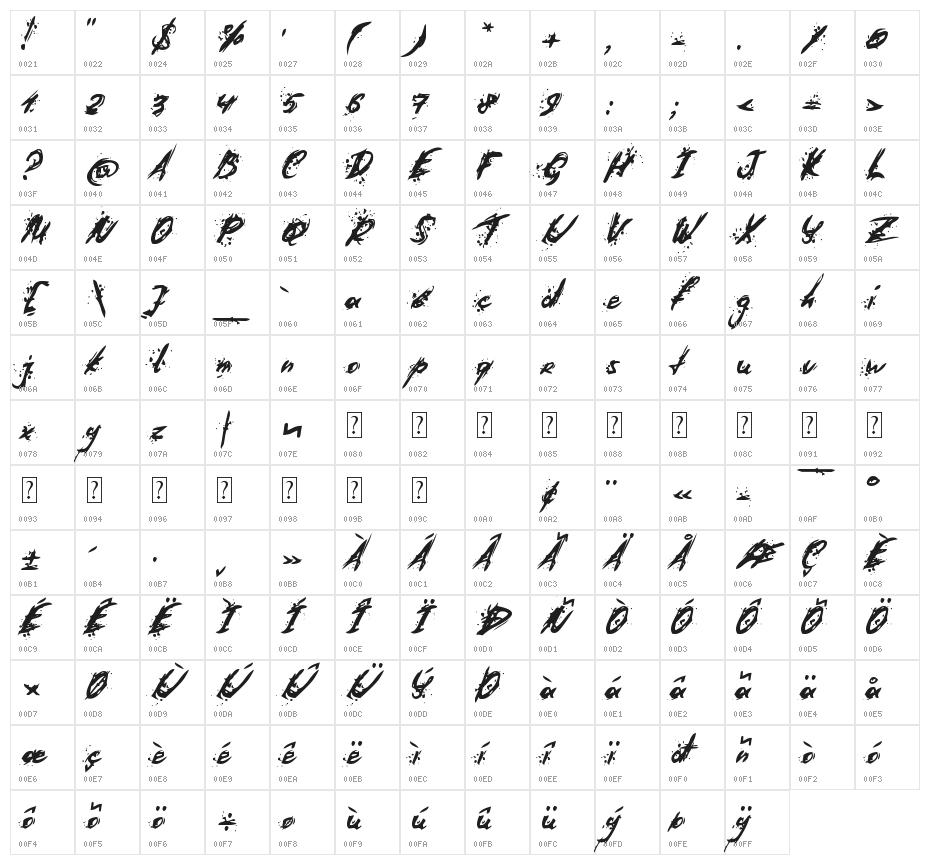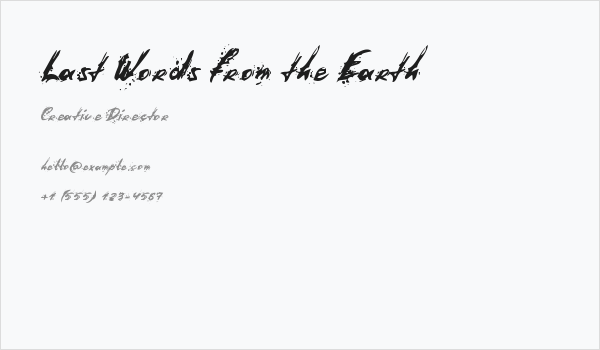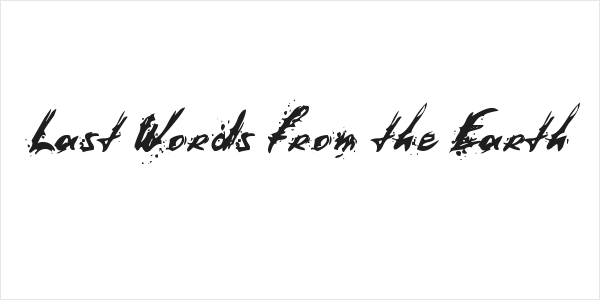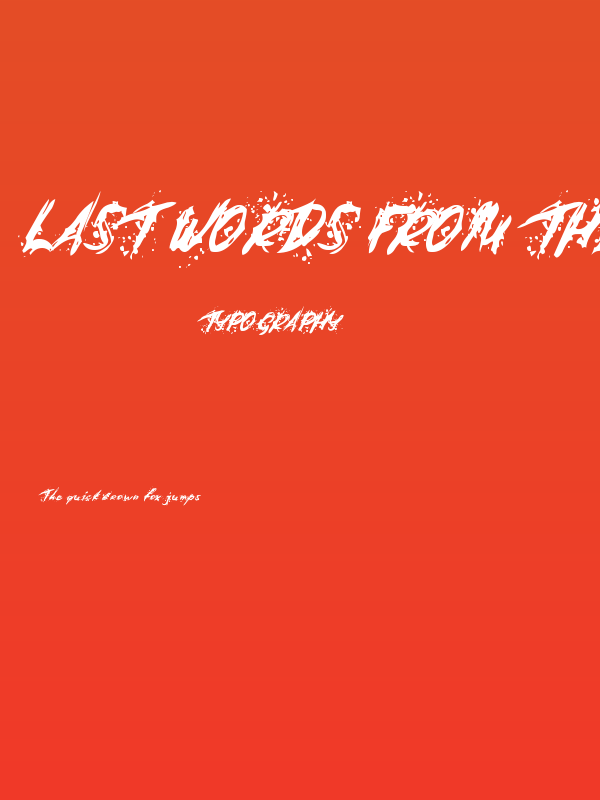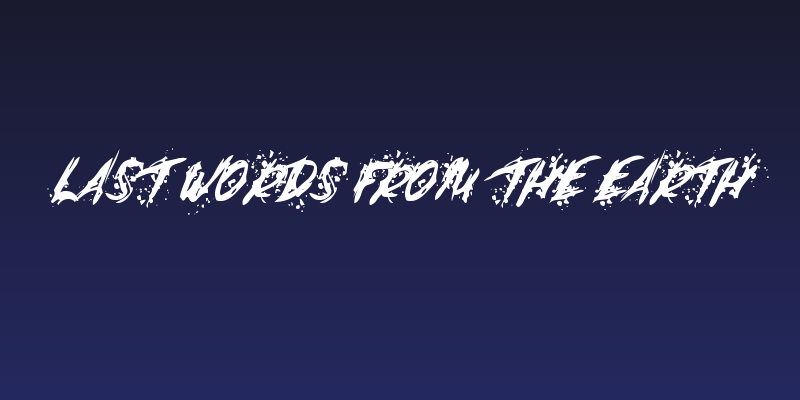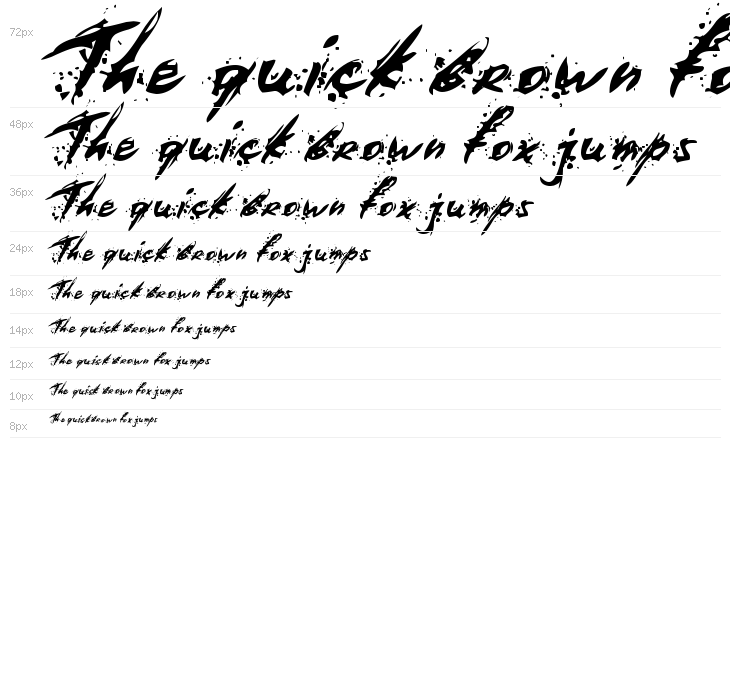
Last Words from the Earth Font
Last Words from the Earth Description
This font exudes a raw, expressive energy with its splattered, graffiti-like appearance. Each character is uniquely styled with dynamic strokes and irregular edges, creating a sense of movement and chaos. The uppercase and lowercase letters maintain a consistent aesthetic, while the numbers and special characters integrate seamlessly into the overall design. The font's bold, artistic flair makes it ideal for projects that require a strong visual impact, such as album covers, posters, or street art-inspired designs.
| Overall Style | Modern, Artistic |
| Use Case | Headlines, Logos, Artistic projects |
| Proposed Projects | Ideal for album covers, posters, street art designs, and edgy branding projects. |